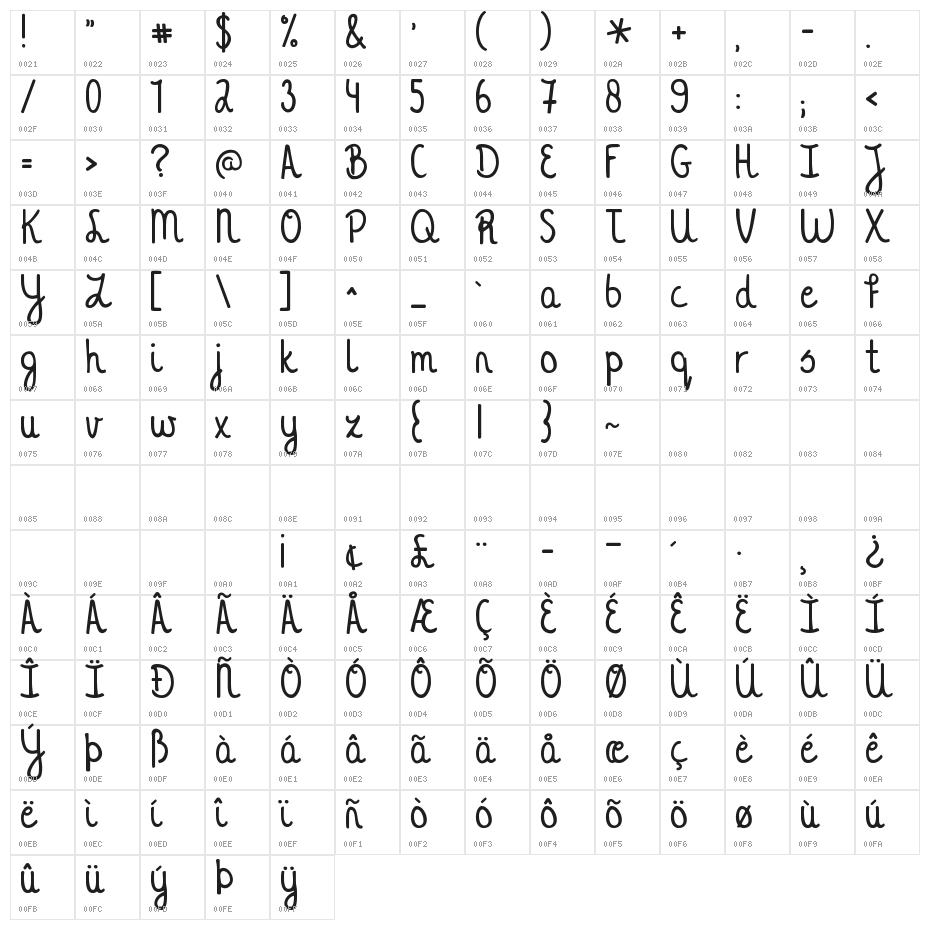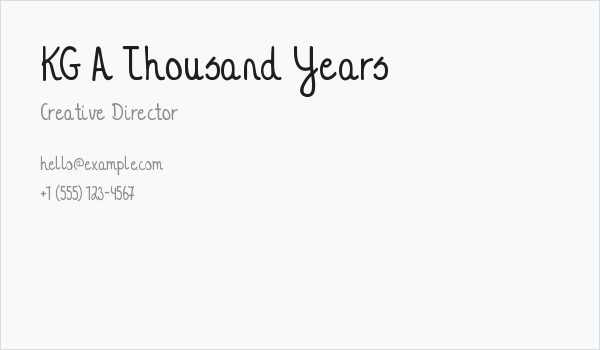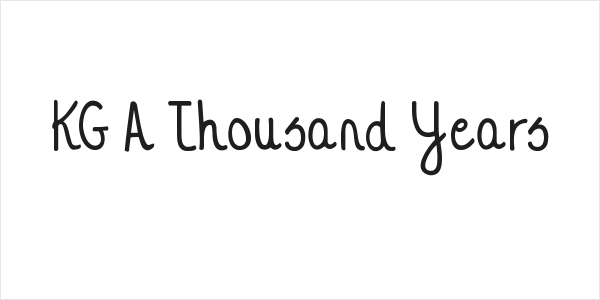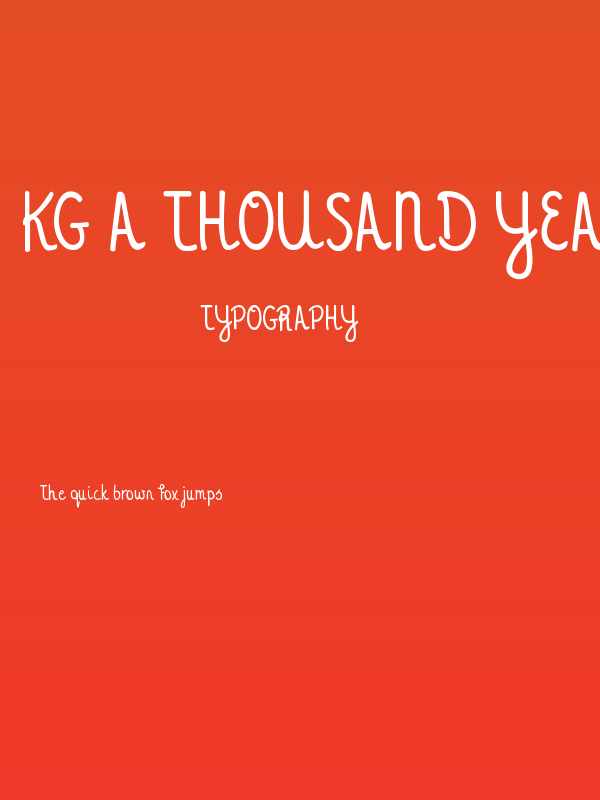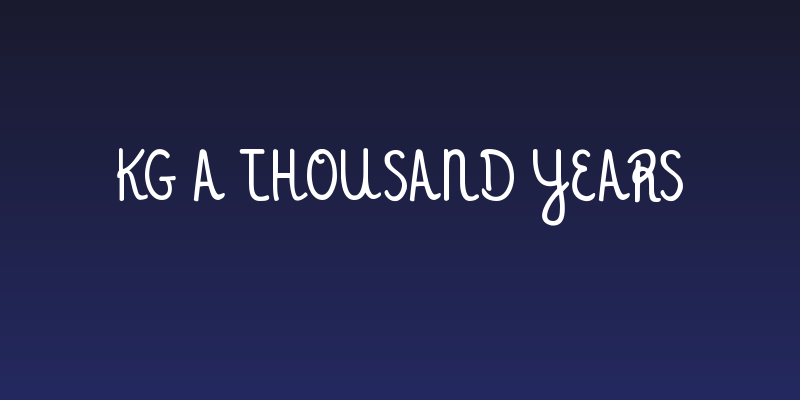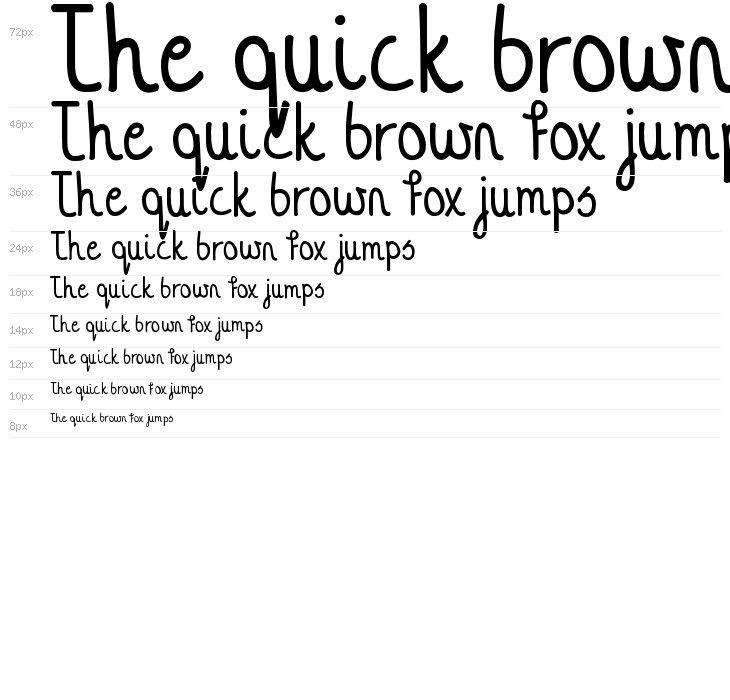
KG A Thousand Years Font
KG A Thousand Years Description
This playful and whimsical font features a handwritten style with a casual and friendly appearance. The characters are slightly rounded with a consistent stroke width, giving it a smooth and approachable look. The uppercase letters maintain a uniform height, while the lowercase letters have a slight variation in size, adding to the font's charm. The numerals and special characters are designed to match the overall style, ensuring a cohesive look across all text. Its informal and relaxed nature makes it suitable for projects that require a personal touch.
Overall StyleCasual
Use CaseHeadlines, Informal text, Branding
Proposed ProjectsIdeal for greeting cards, children's books, playful branding, and social media graphics.